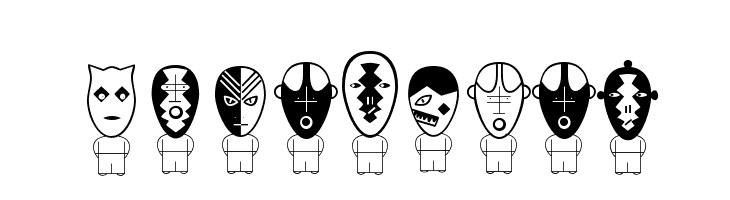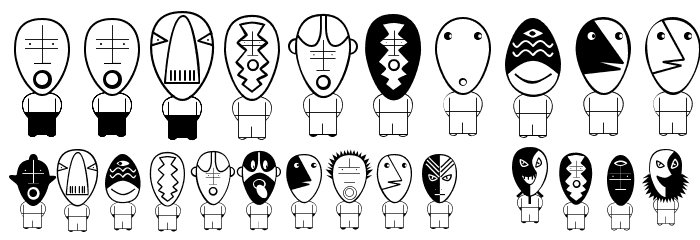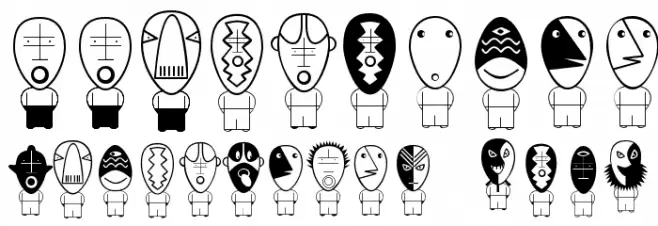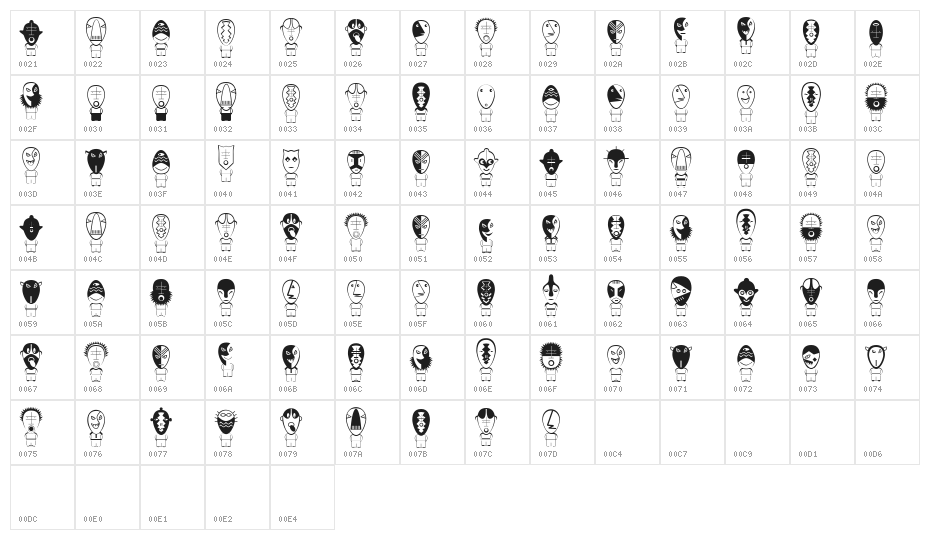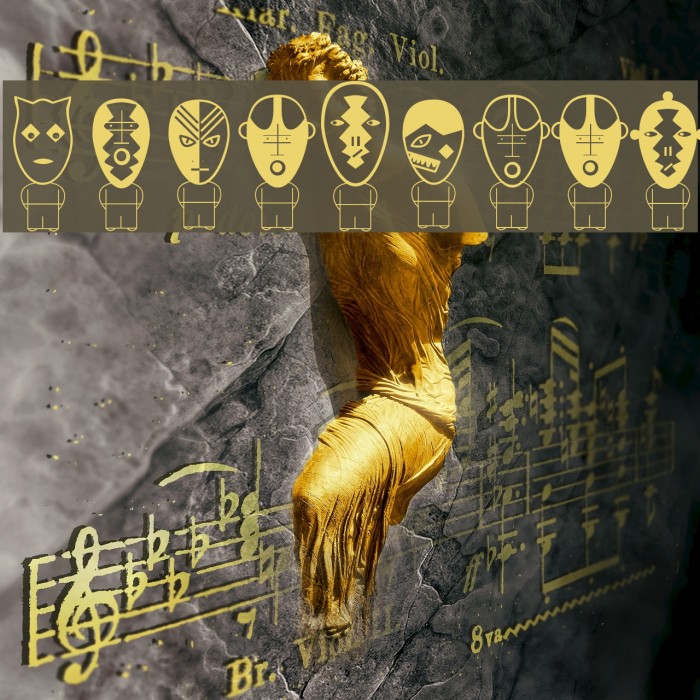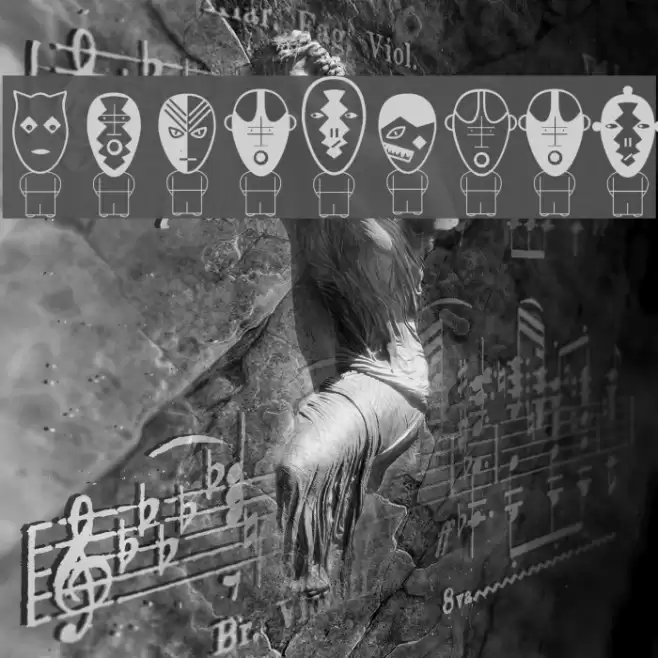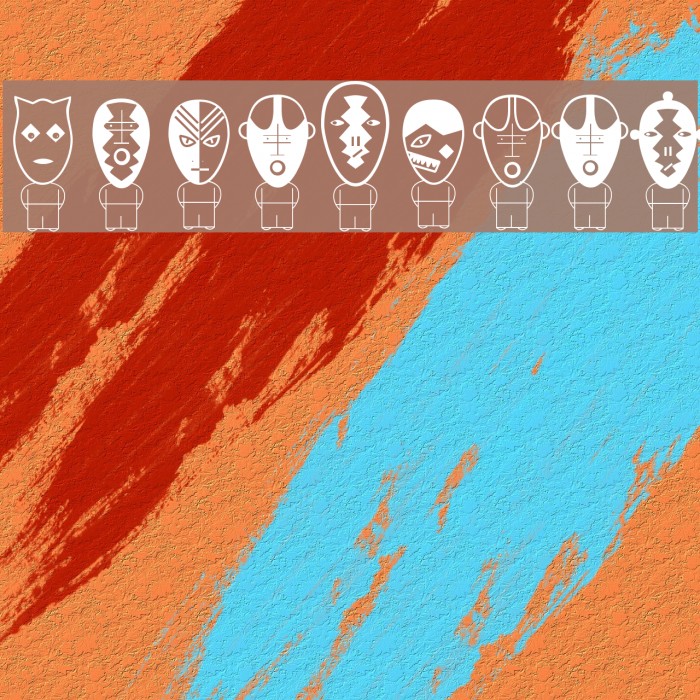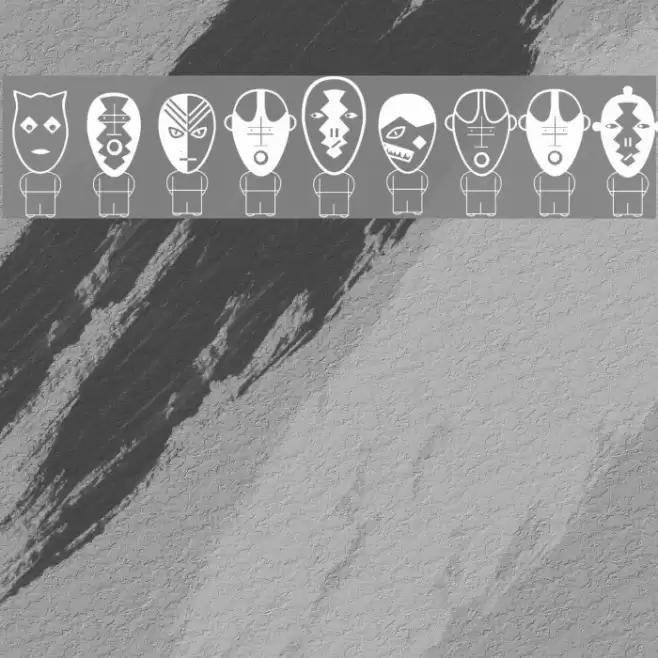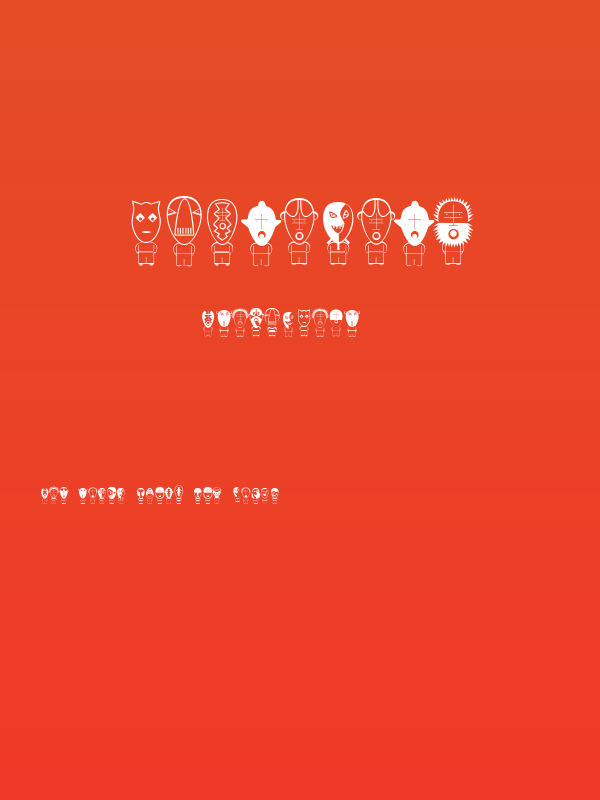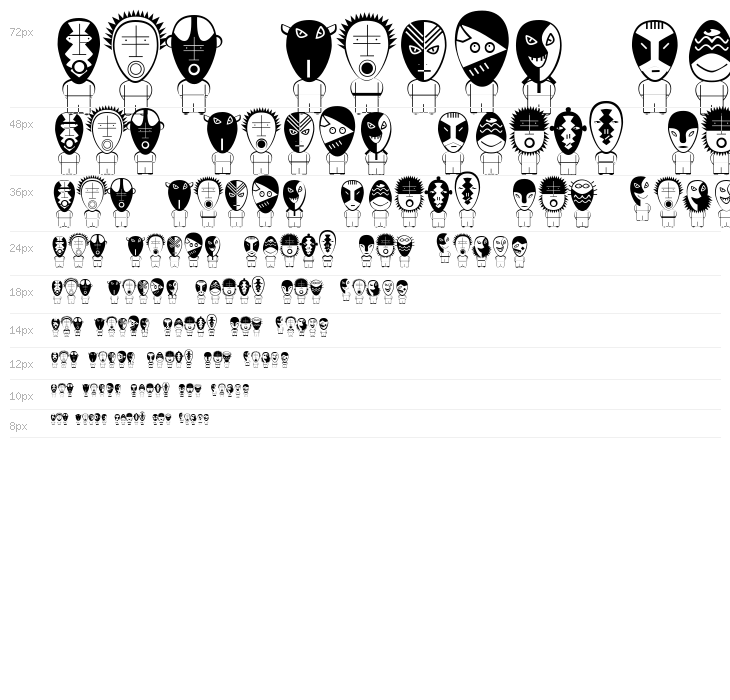
AliensNew Font
AliensNew Description
A highly decorative and playful display font where each character is represented by a unique, abstract alien figure with bold, geometric facial features and simple line-drawn bodies. The glyphs are visually distinct, with high contrast between black and white areas, and each letter or symbol is anthropomorphized, making the set visually engaging and whimsical.
| Overall Style | Decorative, Playful, Abstract, Futuristic |
| Use Case | Headlines, Posters, Logos, Themed Events |
| Proposed Projects | ChildrenΓ’β¬β’s books, sci-fi posters, party invitations, comic titles, branding for creative or tech companies, educational materials. |